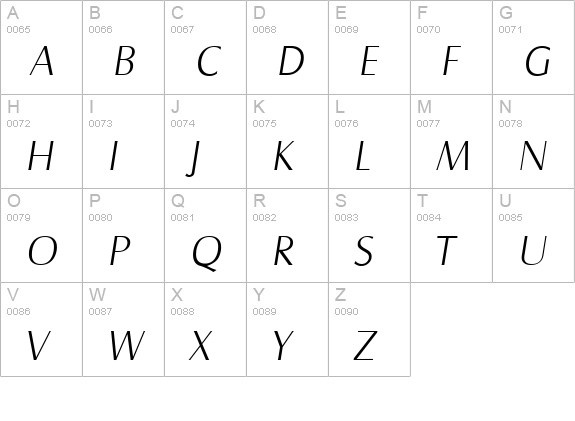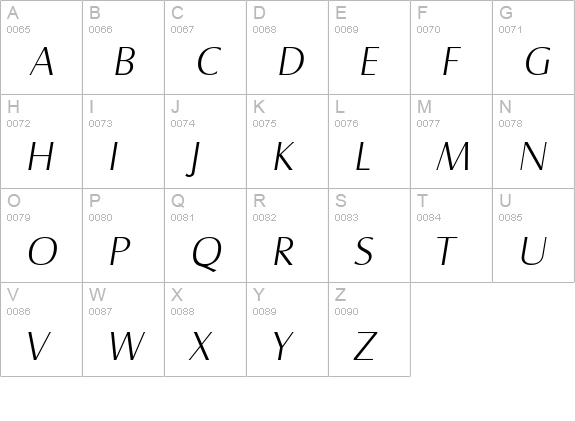
SalzburgSerial-Xlight-Italic is a distinctive, italic variant in the SalzburgSerial typeface family \xE2\x80\x94 well suited to design and typography projects.
SalzburgSerial-Xlight-Italic font is a beautifully crafted typeface that exudes elegance and sophistication. Its sleek and slender letterforms provide a touch of modernity, while the gentle italic slant adds a sense of fluidity and grace to any design project. Whether used for headlines, body text, or creative displays, SalzburgSerial-Xlight-Italic lends a touch of sophistication and style. The best part about this exquisite font is that it is completely free to download at FontsMarket.com. This means you can easily access and incorporate this stunning typeface into your projects without any cost. Don't miss out on the opportunity to elevate your designs with the timeless charm of SalzburgSerial-Xlight-Italic font - download it now and let your creativity shine!